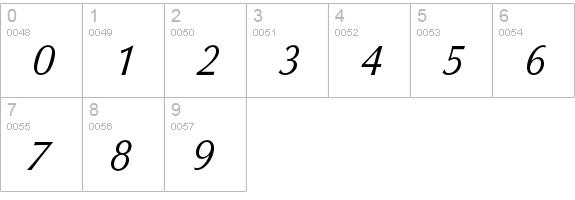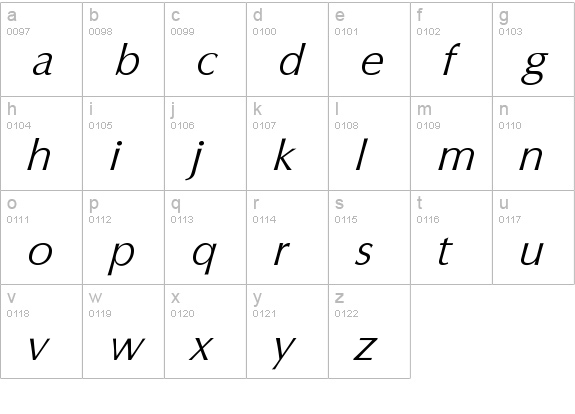
Columbia-LightIta Font Details
Columbia-LightIta is a stunning and elegant font that exudes sophistication and modernity. Its delicate curves and clean lines make it perfect for a wide range of design projects, from branding and packaging to editorial design and web graphics. This font strikes the perfect balance between professionalism and creativity, making it a versatile choice for any designer looking to add a touch of class to their work. What sets Columbia-LightIta apart is not just its visual appeal, but also its accessibility. This font is available for free download at FontsMarket.com, making it easy for designers to incorporate it into their projects without any additional cost. Whether you're a seasoned professional or just starting out, Columbia-LightIta is a valuable addition to any designer's toolkit. Download it today and elevate your designs with this beautiful and versatile font.